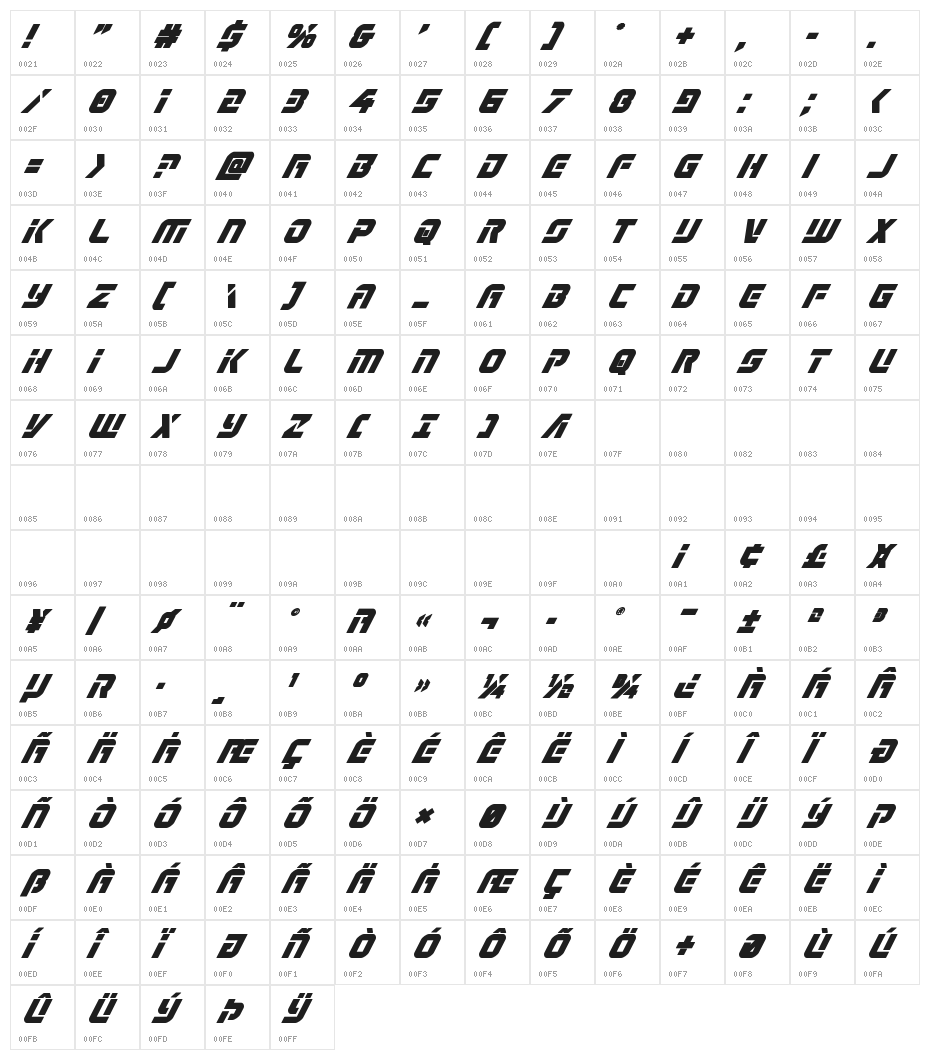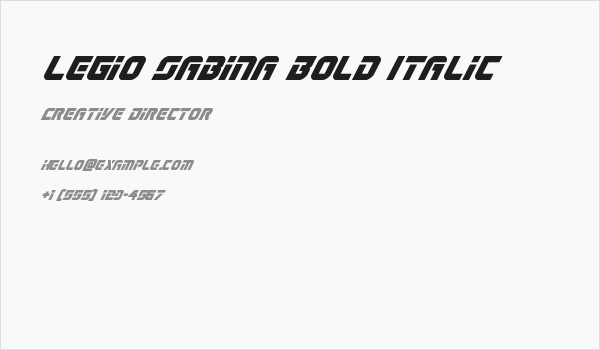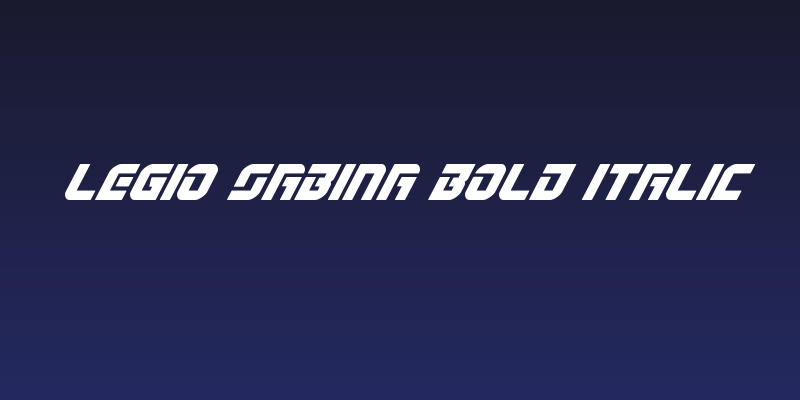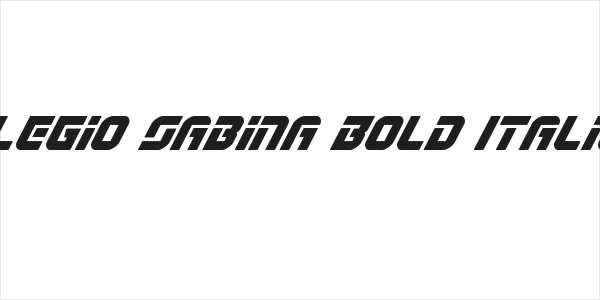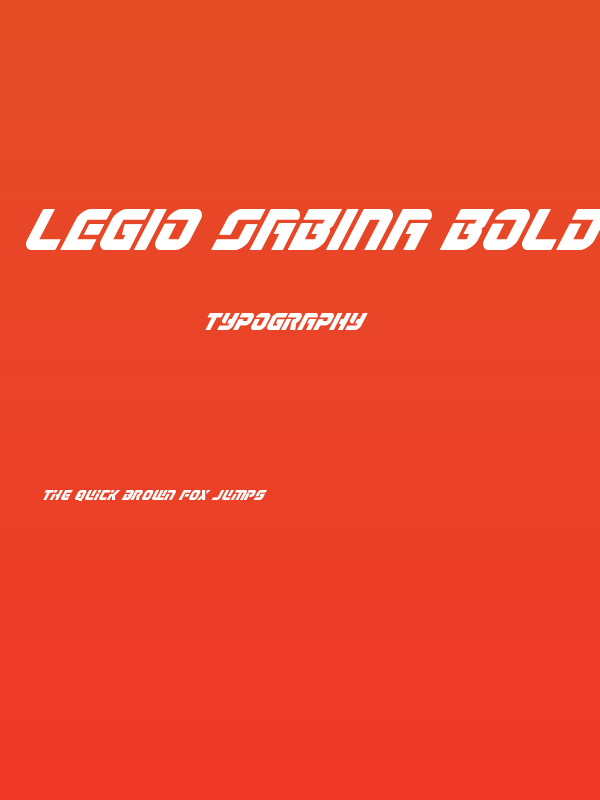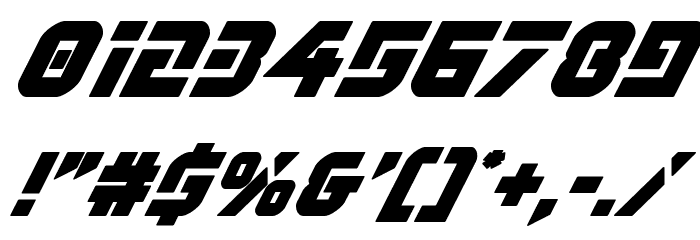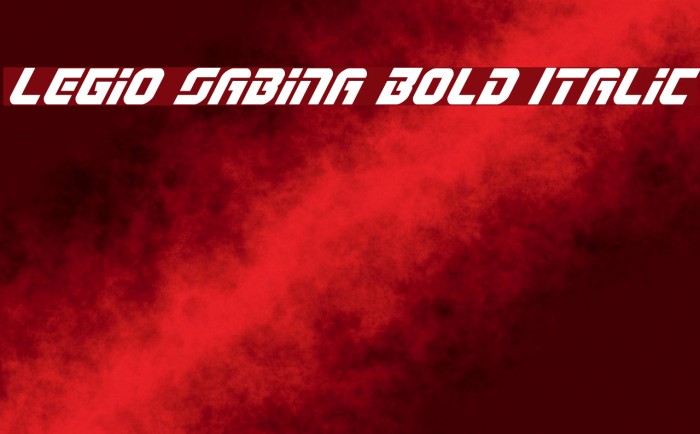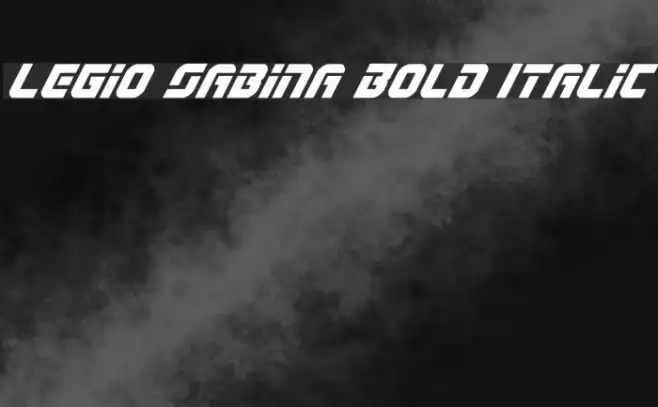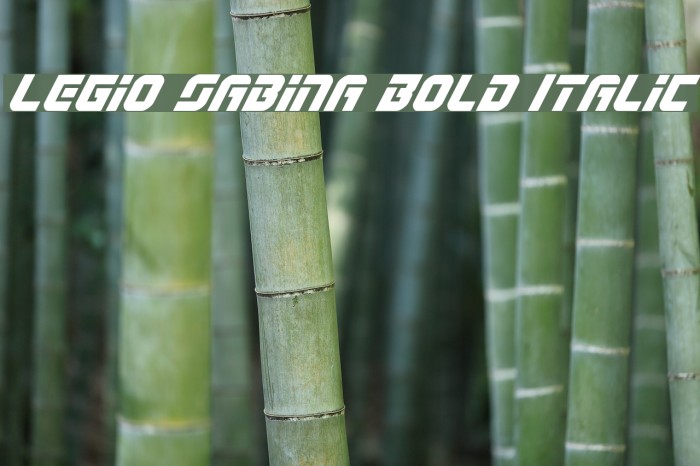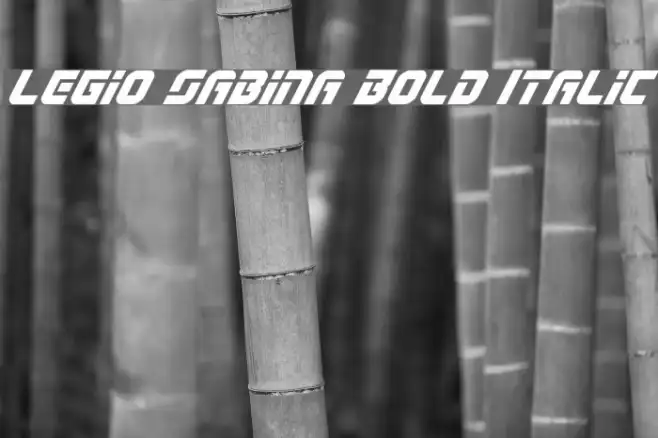
Legio Sabina Bold Italic Font
Legio Sabina Bold Italic Description
This font features a bold and italicized style with a strong, dynamic presence. The characters are slanted, giving a sense of motion and energy. The strokes are thick and consistent, providing a robust and impactful appearance. The design is modern and sleek, with sharp angles and clean lines that enhance its futuristic feel. The uppercase and lowercase letters maintain a uniform style, while the numerals and special characters complement the overall aesthetic. This font is ideal for projects that require a bold statement and a contemporary look.
| Use Case | Logos, Headlines, Posters |
| Proposed Projects | Ideal for branding, sports team logos, posters, and any project needing a bold, energetic typeface. |